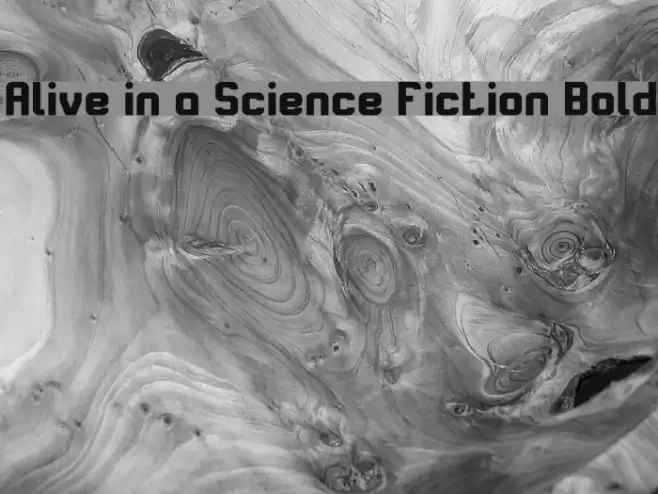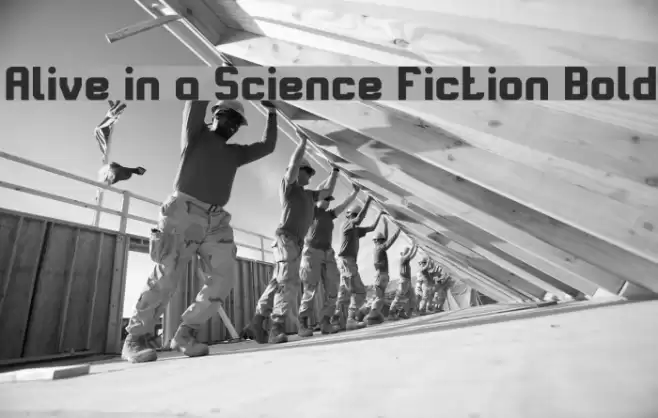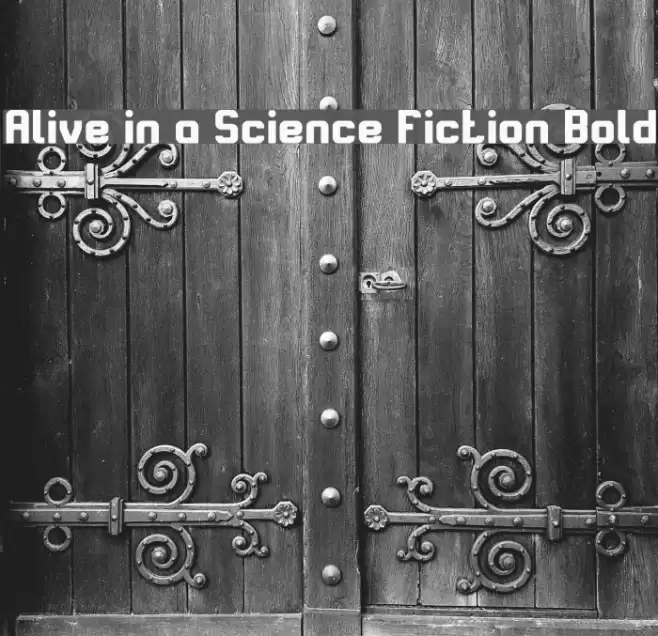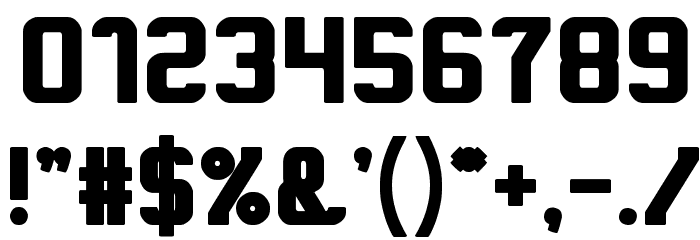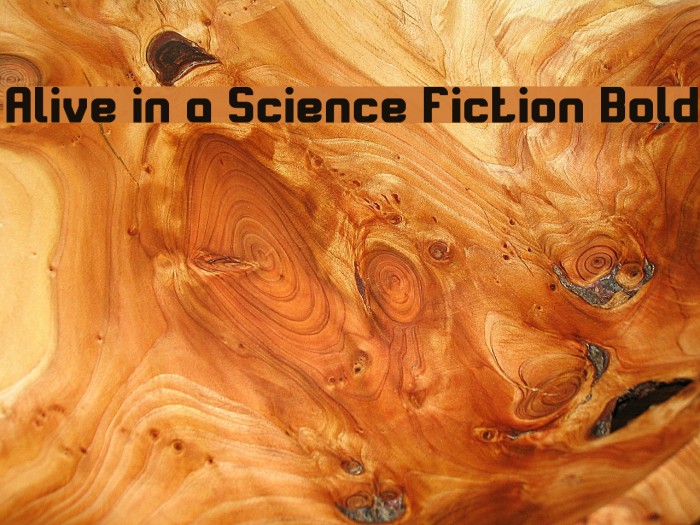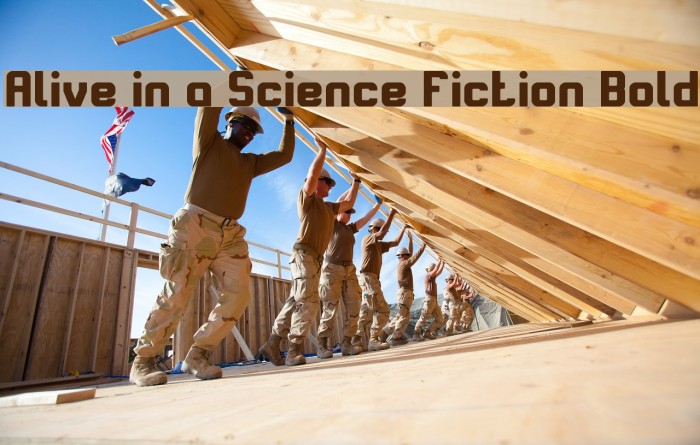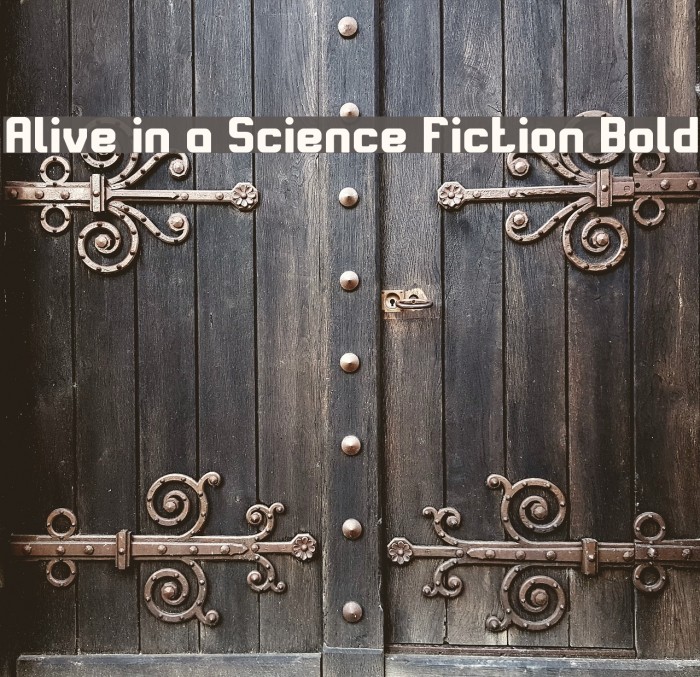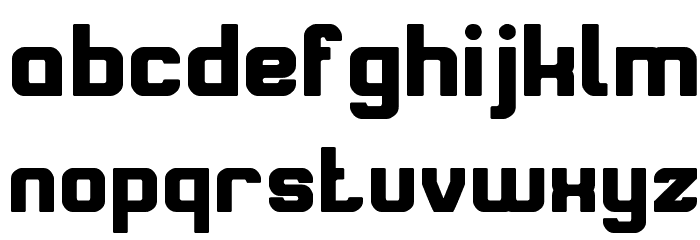
Alive in a Science Fiction Bold Font
Alive in a Science Fiction Bold Description
This font features a bold, futuristic design with a strong presence. The characters are blocky and geometric, with a consistent stroke width that gives it a uniform appearance. The uppercase and lowercase letters share a similar structure, enhancing readability while maintaining a unique style. The numbers and special characters are designed to match the boldness of the alphabet, making them stand out. This font is ideal for projects that require a modern, tech-inspired look, such as science fiction themes or digital interfaces.
- Proposed Projects: Ideal for science fiction themes, digital interfaces, video game graphics, and technology branding.